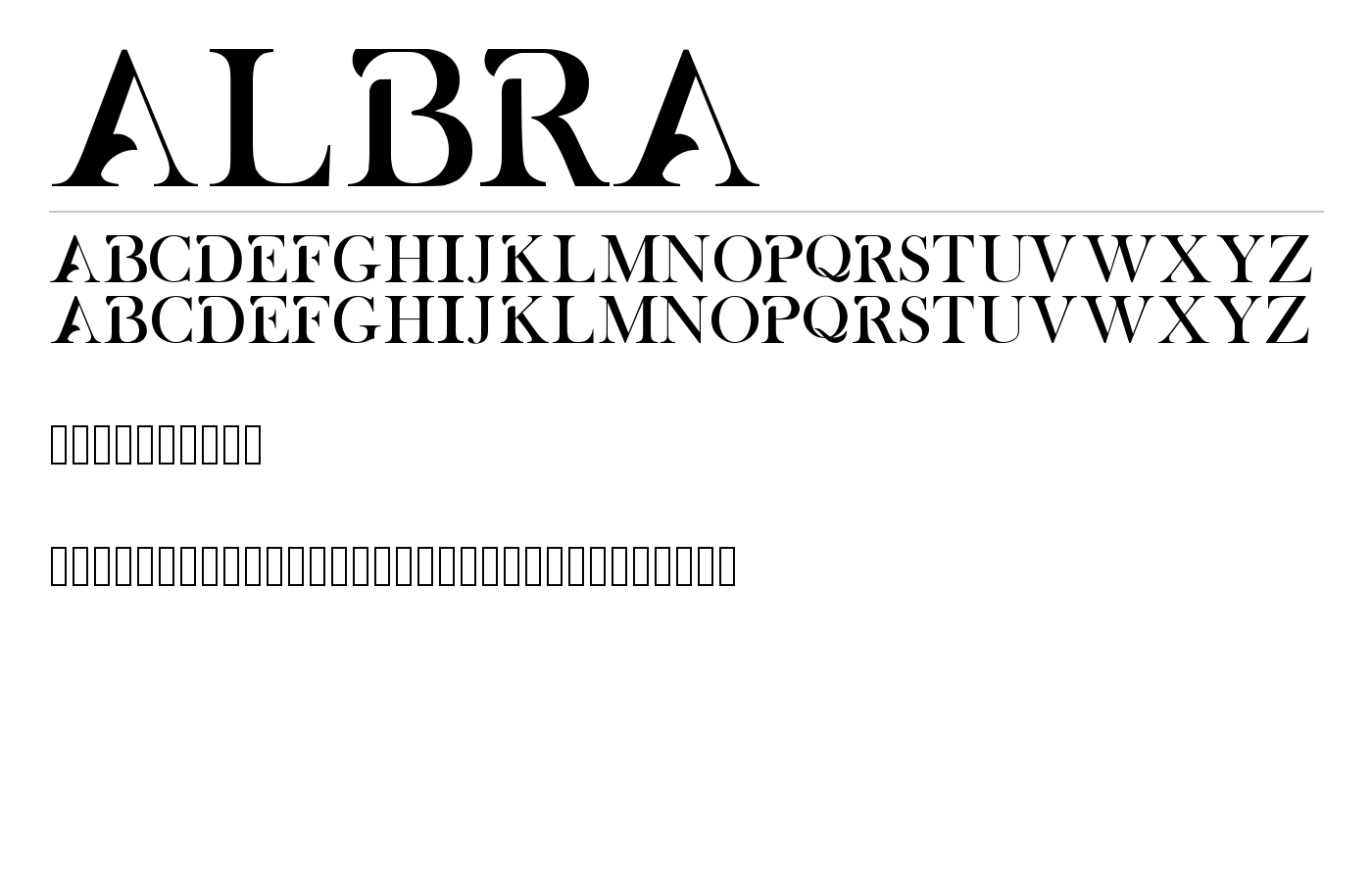
Albra is a striking serif typeface with a strong contrast between thick and thin strokes and elegant, sharp serifs that blend classic sophistication with a modern edge. Its tall, narrow letterforms and distinctive, stylized details give it a refined and unique character, making it ideal for high-end branding, editorial headlines, and luxury packaging where a bold, elegant statement is needed. This font excels in applications that demand a blend of timeless elegance and contemporary flair.
ALBRA Font